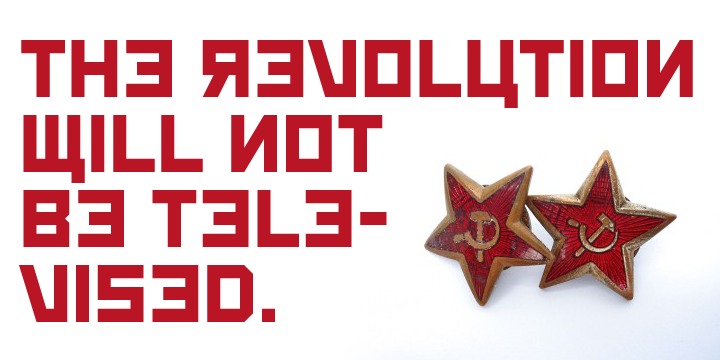
Most uppercase letters of this constructivist font are made to look like cyrillic letters, so by carefully interspersing those you can set your text and headlines with it and make it look russian! To a native russian this of course looks very silly indeed, so to make amends for toying with their letters I have also included a full proper and genuine cyrillic character set. So this is the first CheapProFonts font to support languages using the cyrillic script in addition to the usual 65 latin-based languages.